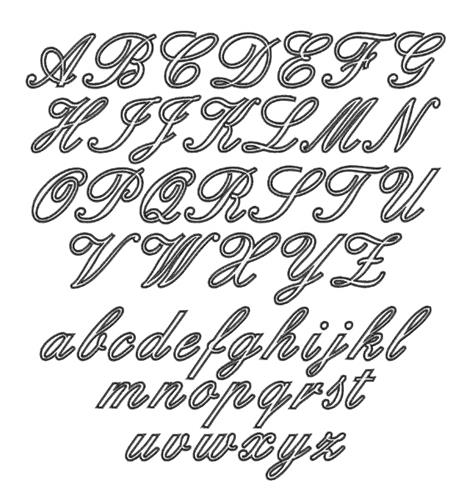
Embroidery Patterns is happy to present Outline Script Embrilliance machine embroidery font which has This outline script machine embroidery font brings a decorative flair to projects like table linens and wall hangings. Stitch with ease using the available BX font and Embrilliance formats. included. If you would like to view more embroidery fonts and alphabets please search our embroidery fonts page.